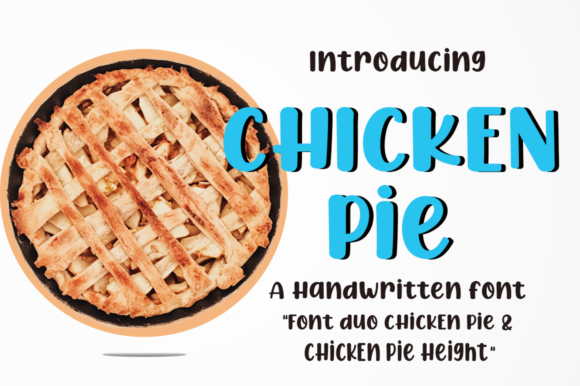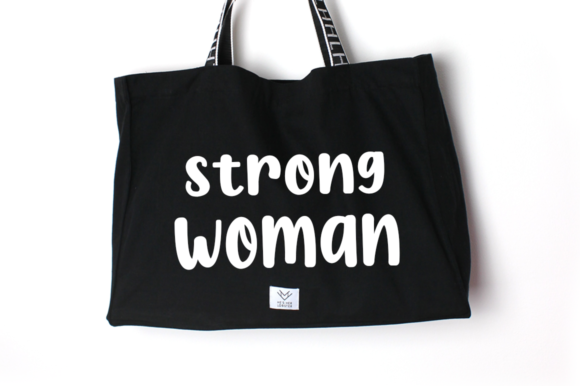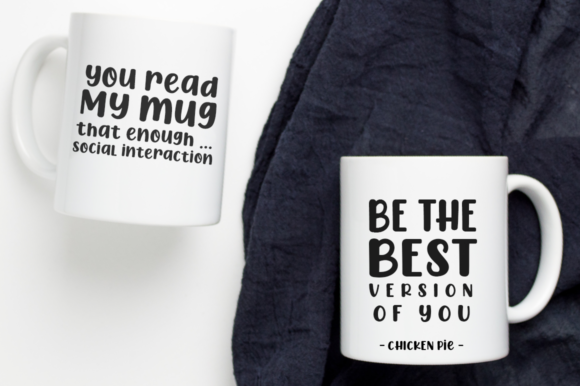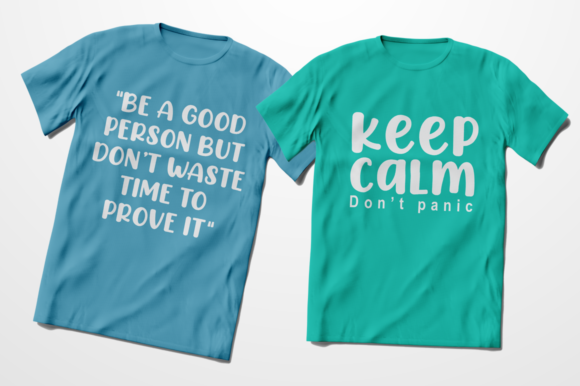
Chicken Pie Font
About the Chicken Pie Font
Experience the unique personality of Chicken Pie Font, a font designed for impact. Chicken Pie is a bold sans serif font, carefully handcrafted to become a true favorite. Its casual charm makes it appear wonderfully down-to-earth, readable and, ultimately, incredibly versatile. This font will look outstanding in any context, whether it’s being used on busy backgrounds or as a standalone headline!